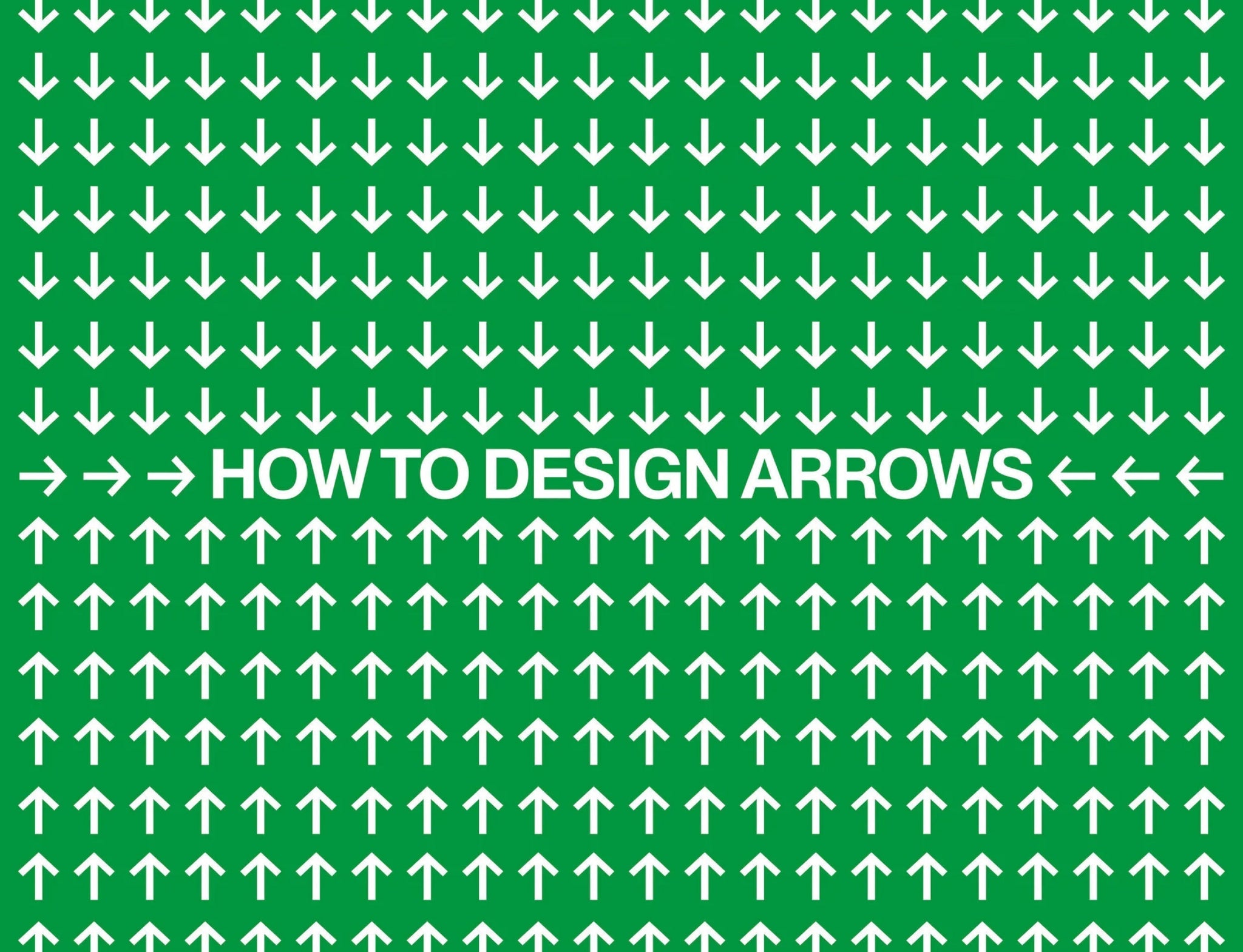
We’ve spoken super in-depth to Andrea Biggio, Caio Kondo, Francesca Bolognini and Valerio Monopoli about designing a single set of glyphs ⇢ one that’s as important ⇡ and (literally) iconic ⇡ as it is easy to mess up ↯ when designing it cohesively with your font. Arrows!
You know and love them, we certainly do. Arrows! Typographic arrow glyphs, to be precise. What’s really remarkable about arrows, like very very few symbols, they are truly universally recognised. You could go anywhere on Earth and set up a sign with an arrow on it and people will know that you mean to point them in a specific direction. “ Arrows have been guiding human behaviour, desires and decisions for millennia, long before typography existed,” Pangram Pangram’s Andrea Biggio tells us.
In fact, to prove as much, the oldest ever arrow to have been found was used to point the way to a brothel. Arrows also occupy a significant place in visual culture, both in terms of wayfinding (obviously) but also within identities too, just look at Glasgow Airport’s original logo, which went on to inspire Off White (I use inspire generously, you could argue it was simply stolen). There are also a lot more arrows than you may think, just look at the Unicode chart if you don’t believe us.
Arrow certainly appear simple – a line with a pointed end – however, when it comes to their inclusion within an entire typographic systemic, perhaps it’s not an uncomplicated as it seems. “Arrows are interesting because they act as a kind of mirror for the typeface,” Andrea says, “if you can design them coherently, it means the design has developed enough of an identity to extend beyond the alphabet.” As such, different designers tend to design arrows at different stages of the process in designing a font.
For Andrea, he draws them somewhere in the middle, as he says, “early enough to shape the design’s direction, but not before the fundamental traits of the alphabet are clearly defined.” For others in Pangram Pangram’s design team, like Francesca Bolognini or Caio Kondo, it comes much later in the game when the tone of the typefaces is mostly established. “That gives me a clearer framework to respond to,” Caio explains, “so the arrows feel consistent with the rest of the design rather than arbitrary.”
Francesca details arrows often are tackled at later stages because their design is derived from the logic flows of the existing glyphs – basing their form on decisions that are already made, such as optical feel, terminal style or stroke weight. “The exception is when arrows are conceptually central from the start,” Francesca adds, “as in wayfinding typefaces or brand-driven families where they're a core identity element.” At this stage, arrows are coordinated alongside letterforms rather than being subordinate to them.
The typeface that the arrows are designed for directly informs how complex they are to design, as Valerio Monopoli says, “sometimes their shape can be derived intuitively from the other characters in the font, and sometimes they require special attention and unique graphic solutions,” ultimately being neither particularly easy nor overly complex to design.
“The most challenging part is maintaining consistent stroke weight across different directions,” Caio details, “while still respecting typographic conventions,” such as the horizontal and diagonal elements which can often require optical adjustments to feel balanced amongst vertical strokes. “The more expressive or sophisticated the typeface, the more that detail and character carries through into the arrows too,” Andrea adds, “in that sense they’re not really a special case, they just reflect the overall level of refinement of the font.”
That means that the typographic genre makes a big impact on its complexity, whereby a straightforward, geometric grotesque could be rather simple, and a complex display serif may occupy the more labyrinthine end of the spectrum. “The arrow needs to absorb a much richer visual language while still functioning clearly as a symbol,” Francesca, importantly, notes, speaking to the more complex side of designing arrows.
In speaking to PP’s incredibly talented team, they all stress that, when designing arrows, the most important elements are their size and position. These factors directly influence the visual balance of the arrows alongside their upper and lowercase counterparts. “Arrows are rarely used in isolation, so it’s essential to consider how they interact with letters and other elements in real use,” Caio says, sometimes requiring more than one full set for perfect compatibility with both alphabets.
Whilst their position, size, weight, and proportion all need to befit whatever case they are sat next to, serving a very functional role, they also need to be visually appealing – a tricky balance.
“Adrian Frutiger once described the arrow with disarming simplicity,” Andrea recalls, “when two oblique lines come together to form an angle, the expression of a movement or direction is produced in some form.” This, for Andrea, is the best starting point when designing arrows. “Everything else follows from there.”
Now, the 48-style, 8-weight family has a comprehensive set of arrows alongside a supplementary expressive arrow, and even road-sign-style glyphs too. “It’s a good example of how the arrows can deepen the concept of a typeface,” Andrea ends, “rather than just echoing its formal qualities.”